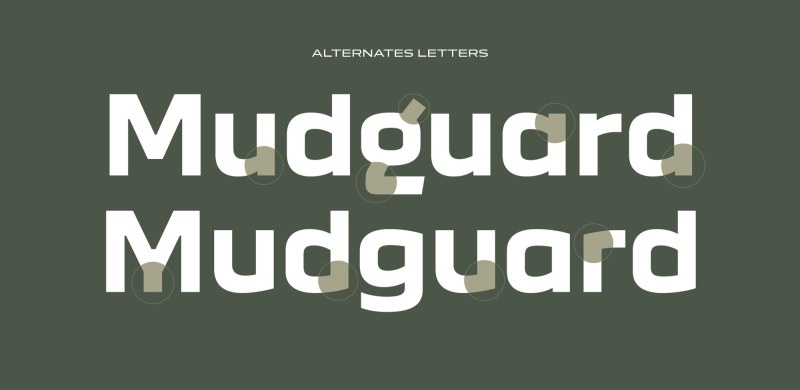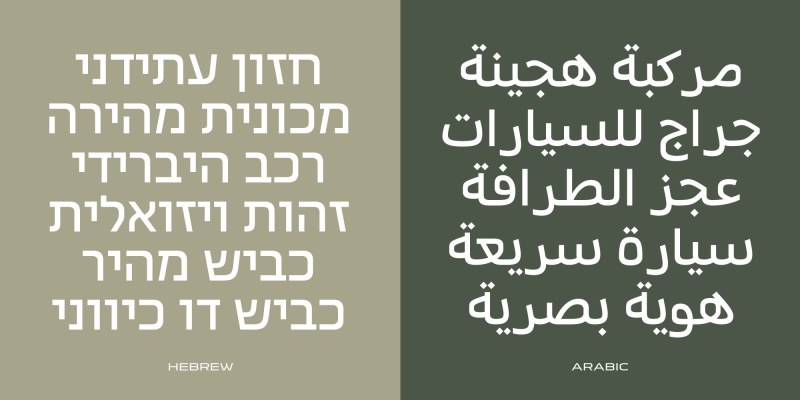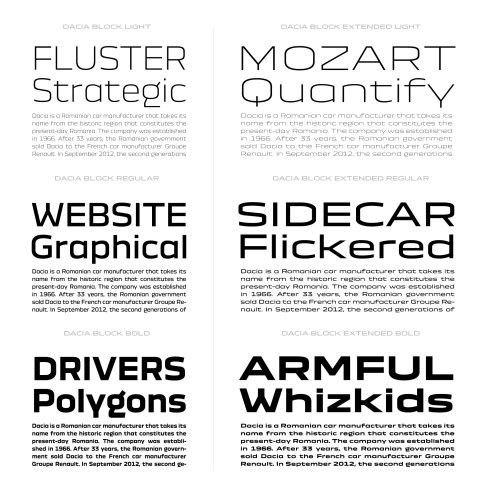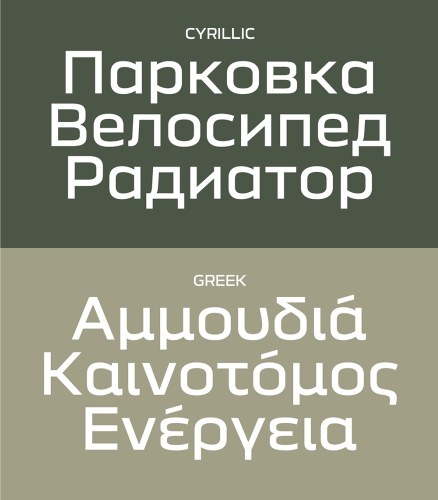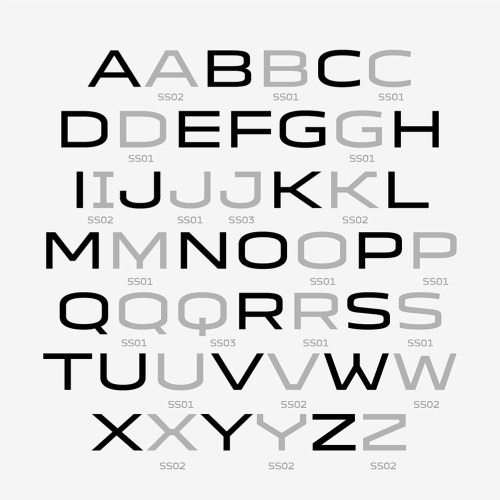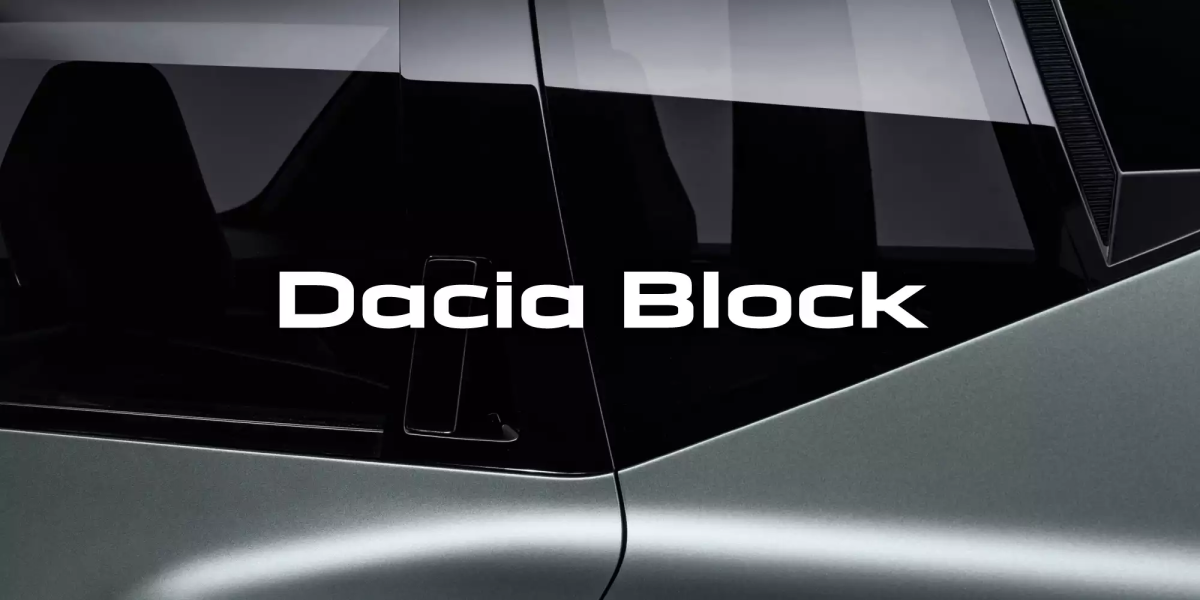
Dacia Block Font
Meet the bold and striking Dacia Block Font a typeface that commands attention with its robust presence and contemporary flair. Inspired by the strength and character of Dacia, this font delivers a powerful visual impact, making it ideal for headlines, logos, and design projects that demand a strong and confident typographic statement. With its carefully crafted blocky letterforms, Dacia Block Font strikes the perfect balance between modern design and a bold, assertive aesthetic. Make a statement with your typography using the distinctive and impactful Dacia Block Font.
Dacia Block Font is a Display Fonts font that brings a professional and versatile look to your projects. Meet the bold and striking Dacia Block Font a typeface that commands attention with its robust presence and contemporary flair.